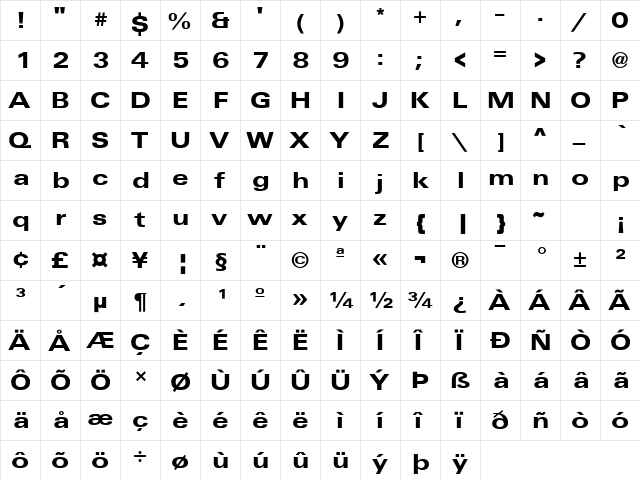
Unique Extended BOLD
Design Context for Unique Extended Typeface
Unique Extended takes a measured approach to typography — its balanced proportions and neutral character make it a reliable workhorse for both digital and print work. Its bold stroke weight gives it real presence on the page.